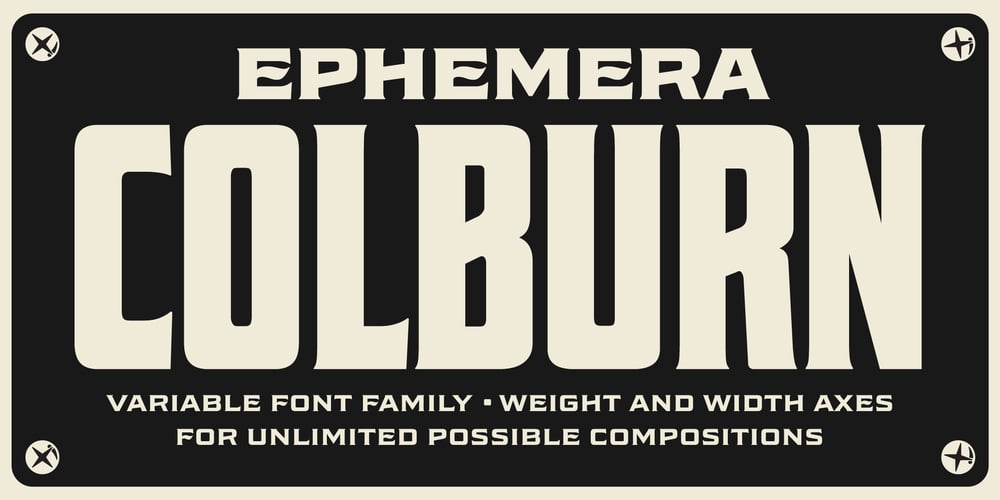
EFCO Colburn
EFCO Colburn font
EFCO Colburn Font Family was designed by Ilham Herry and published by Ilham Herry. EFCO Colburn contains 26 styles and family package options. Colburn is a squarish typeface inspired by lettering found on vintage tins, Colburn is a display typeface that captures the essence of nostalgia while offering modern versatility. Colburn’s variable font technology ensures seamless transitions between different styles, empowering you to create dynamic and harmonious compositions. From packaging and posters to websites and branding materials.PDF SPECIMEN